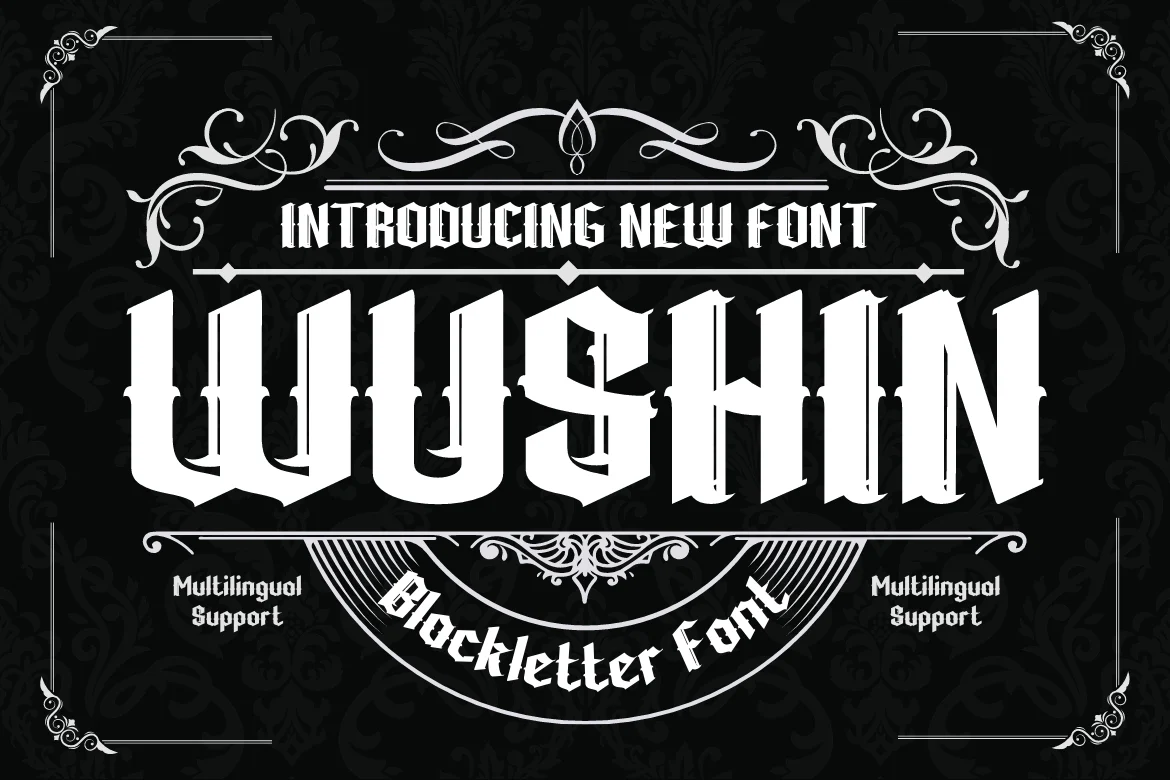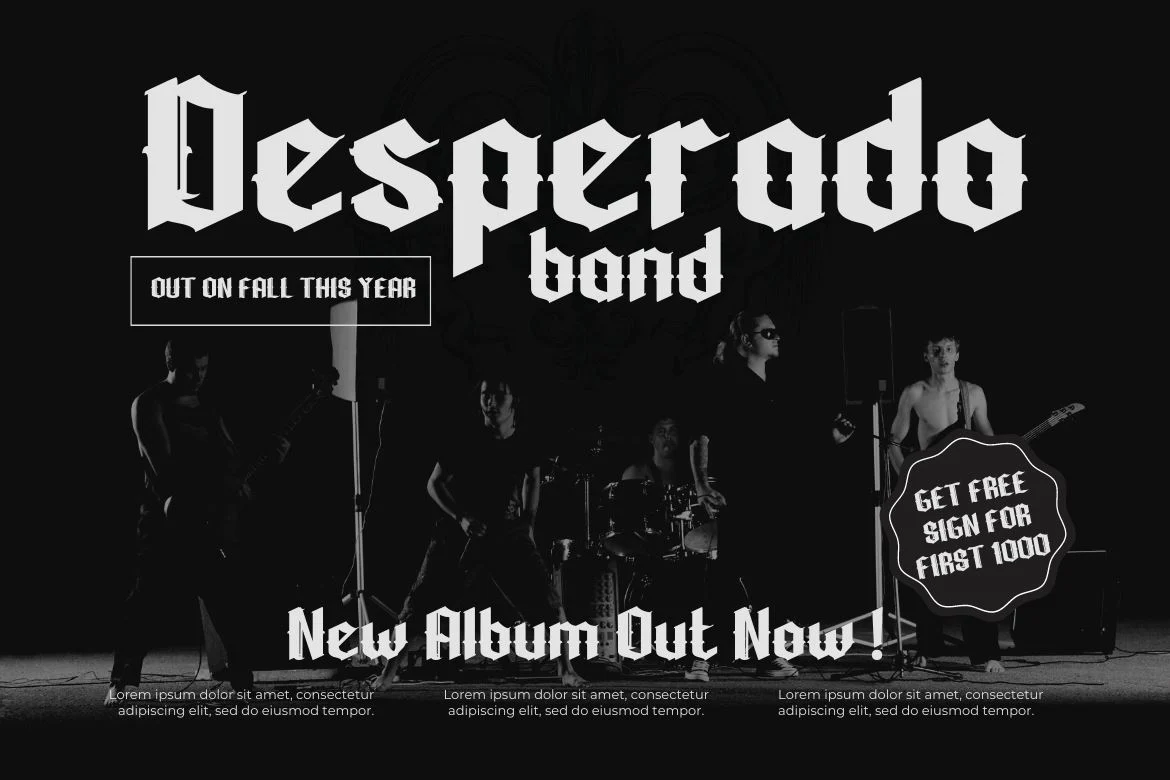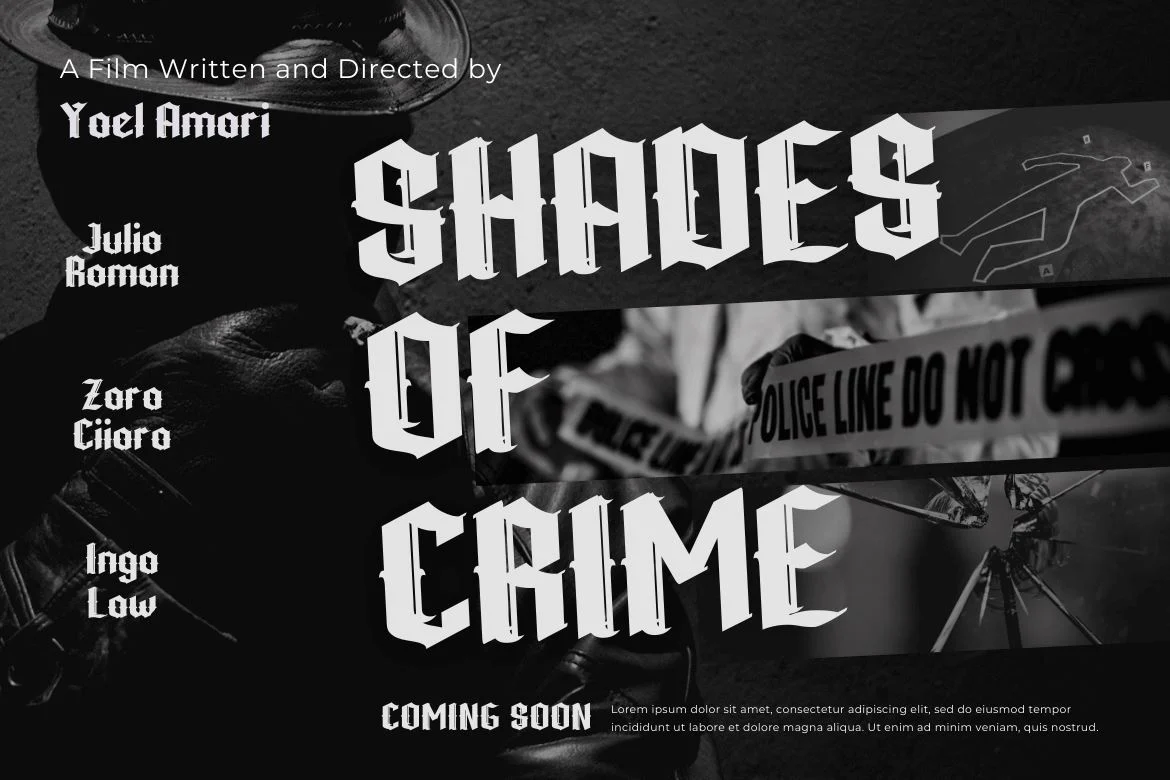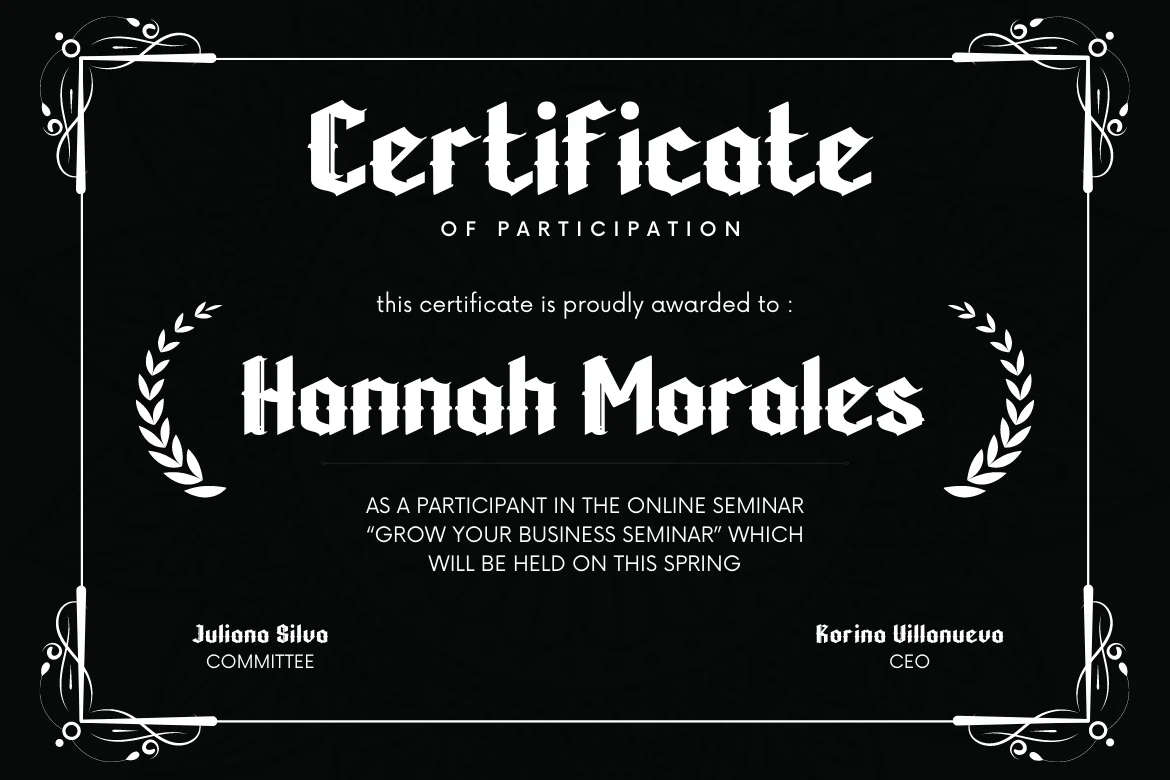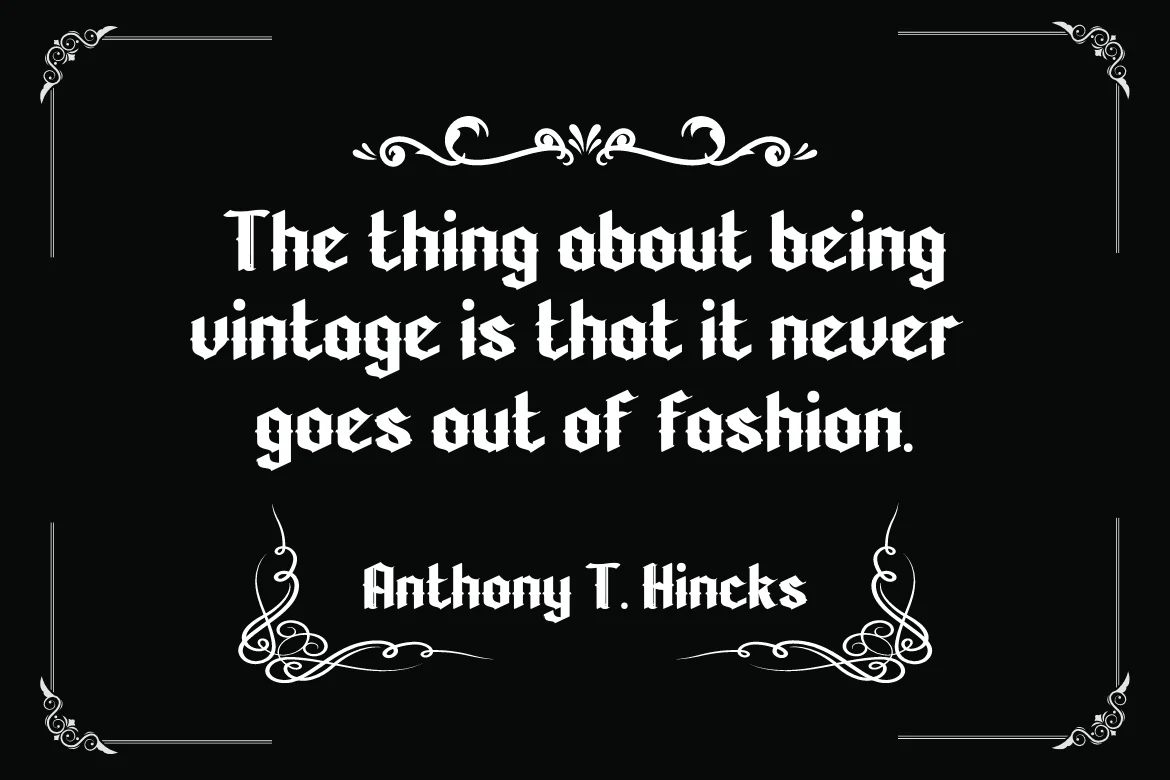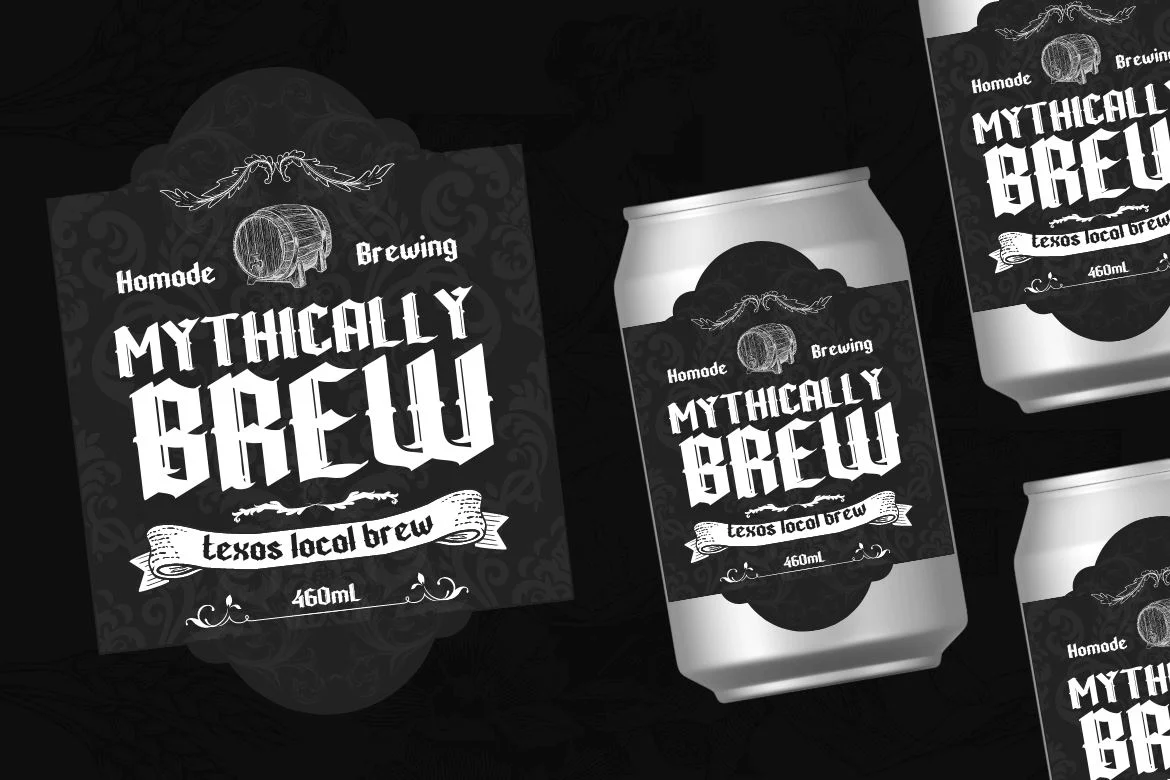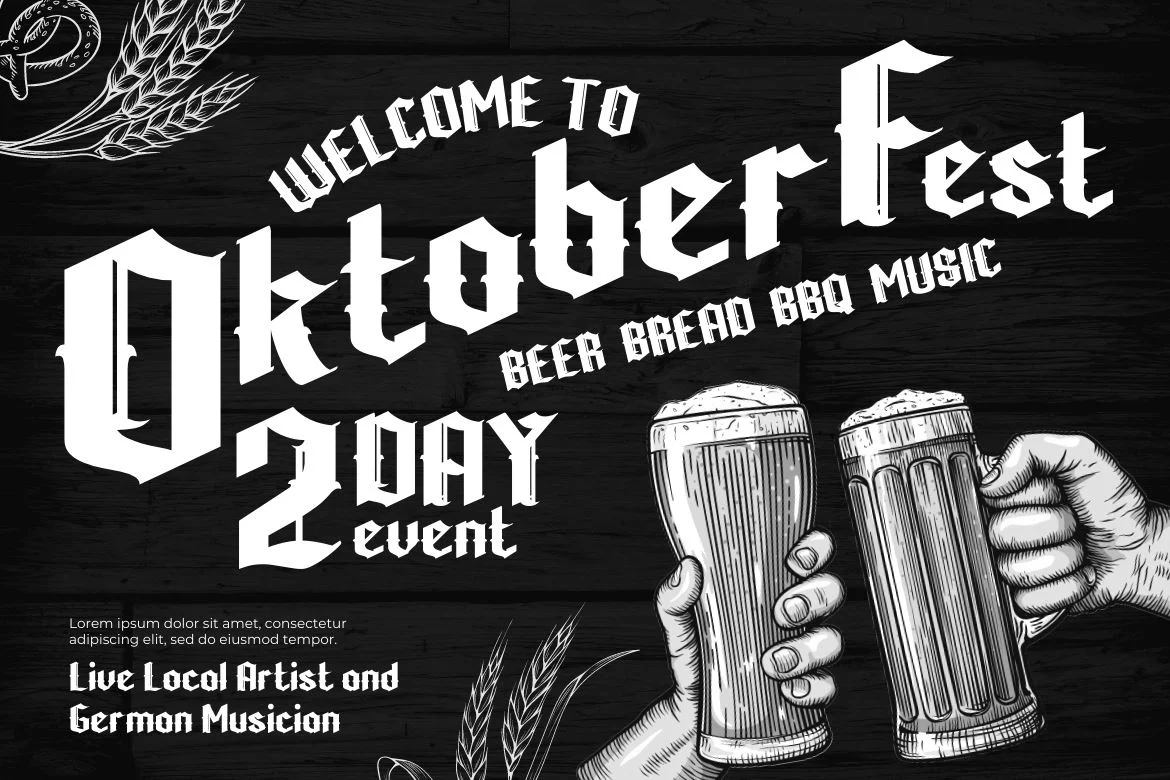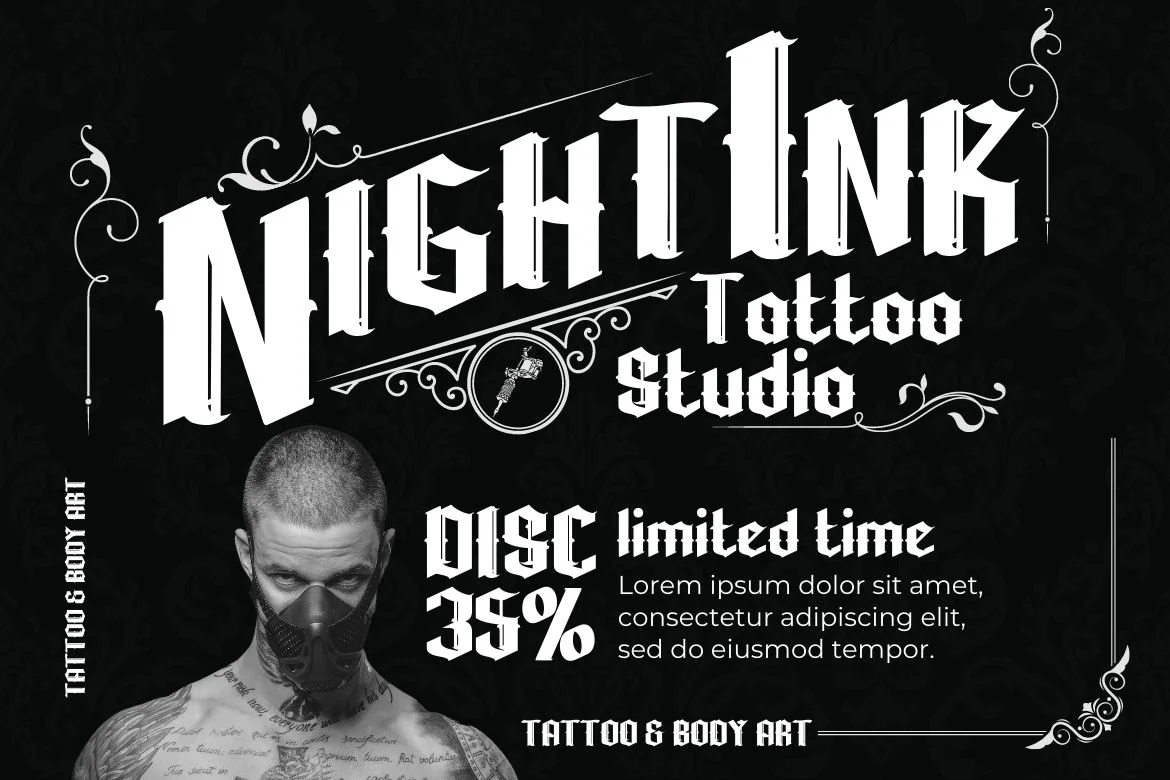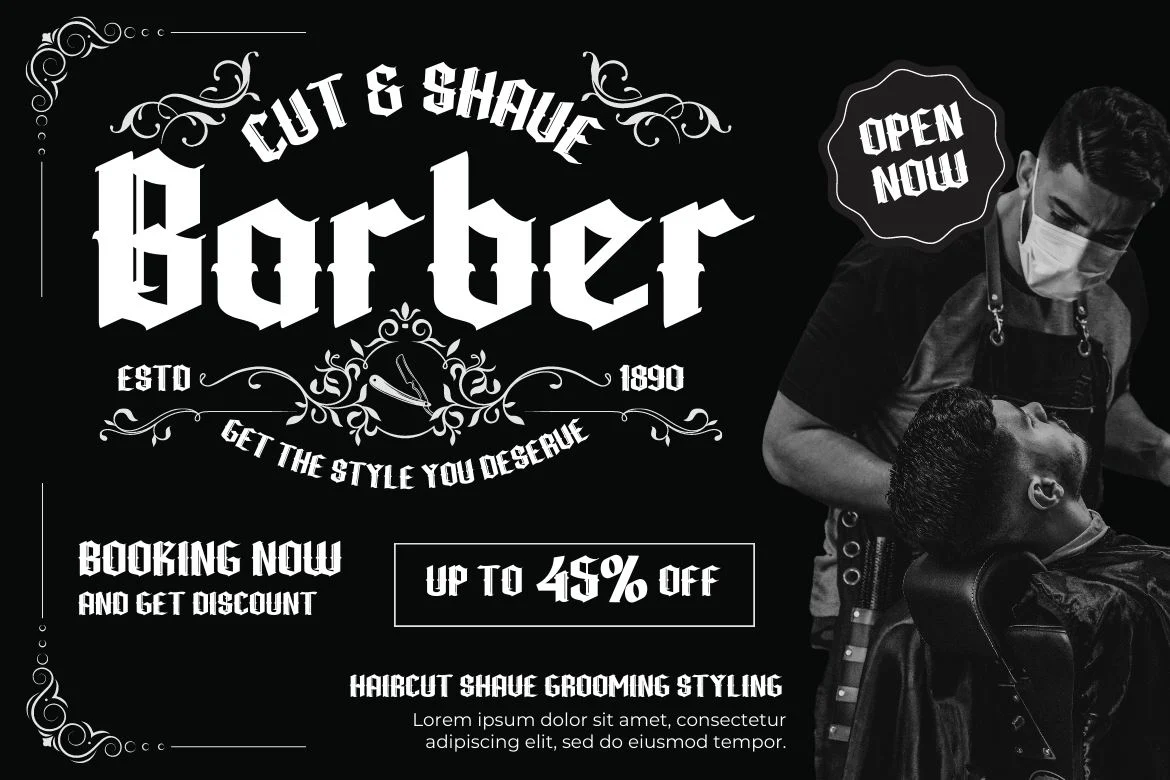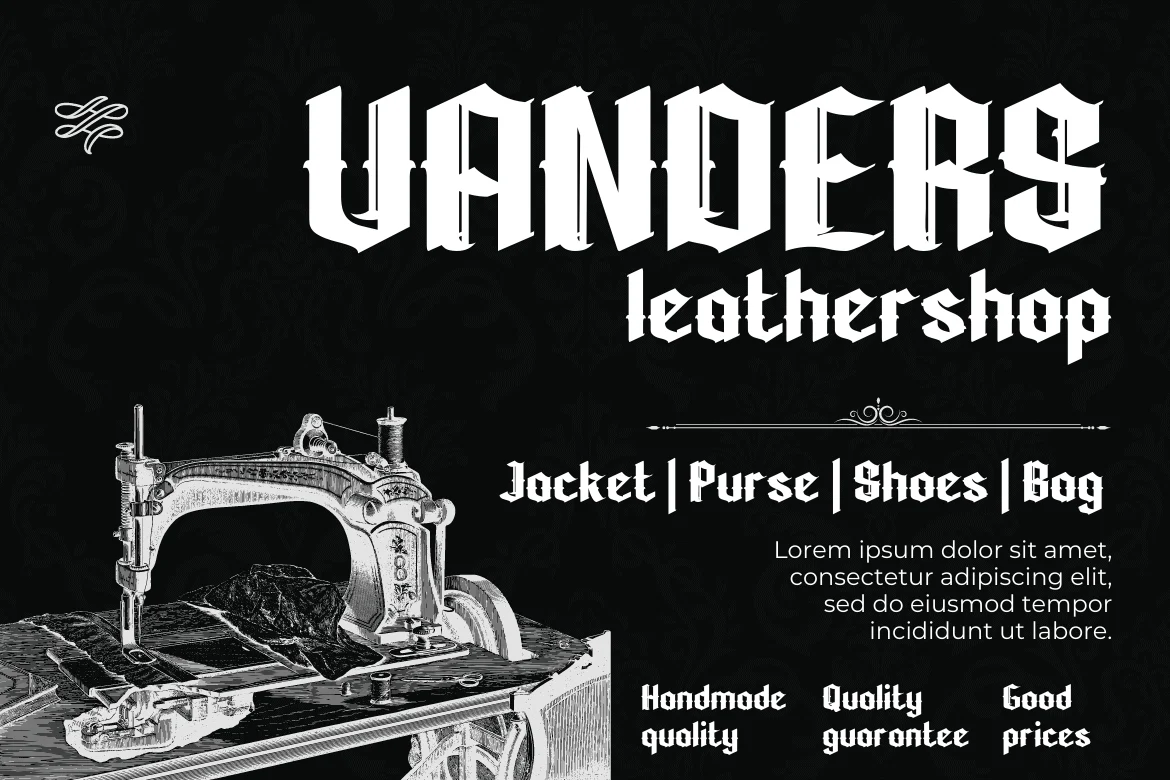
WUSHIN Blackletter font
Every design project needs fonts, and the WUSHIN Blackletter font is ideal for any that calls for a gothic touch. A great place to look for fonts for your most recent logo, label, badge, music video, or film is the WUSHIN Blackletter font!
This font is ideal for any project that requires a bit of gothic flair. Its various lovely and harmonious shapes let you select the perfect word for your project.
Every design project needs fonts, and the WUSHIN Blackletter font is ideal for any that calls for a gothic touch. A great place to look for fonts for your most recent logo, label, badge, music video, or film is the WUSHIN Blackletter font!
This font is ideal for any project that requires a bit of gothic flair. Its various lovely and harmonious shapes let you select the perfect word for your project.